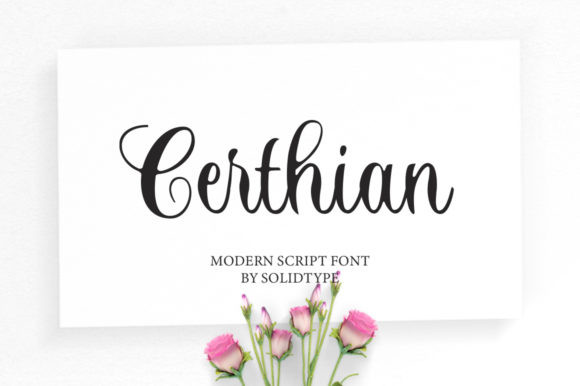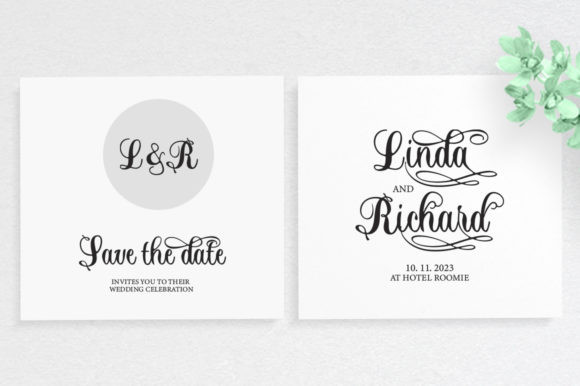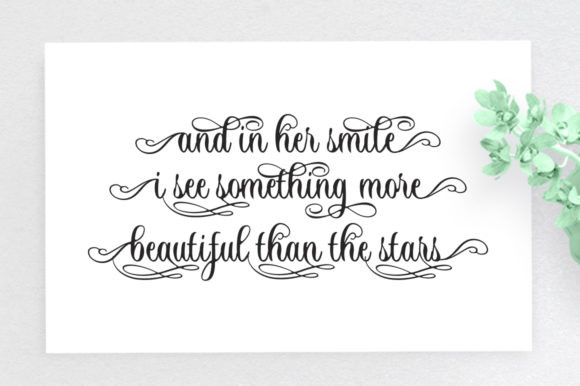
Certhian Font
Certhian is a modern and elegant handwritten font. Its distinct and well rounded letters make this font a masterpiece. Fall in love with its incredibly versatile style and use it to create spectacular designs!